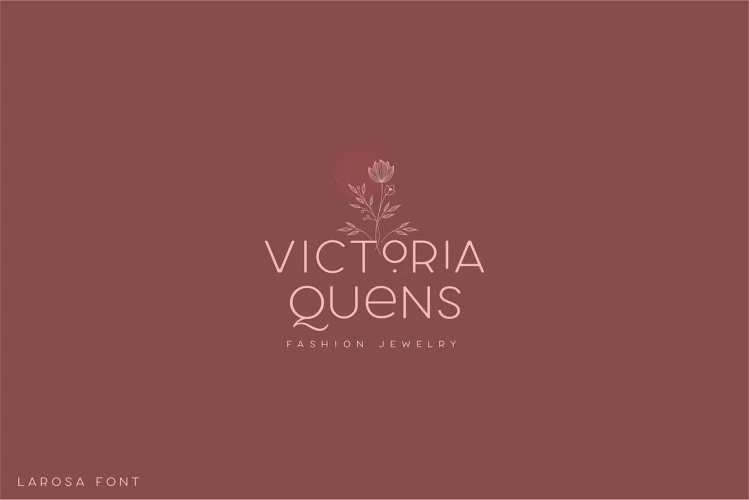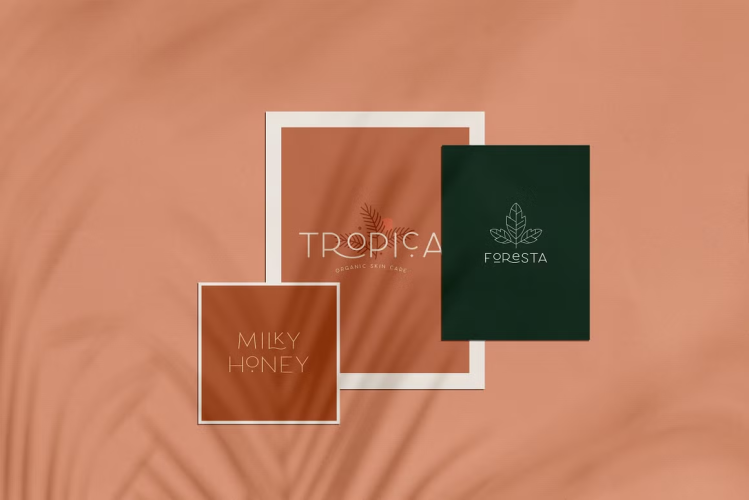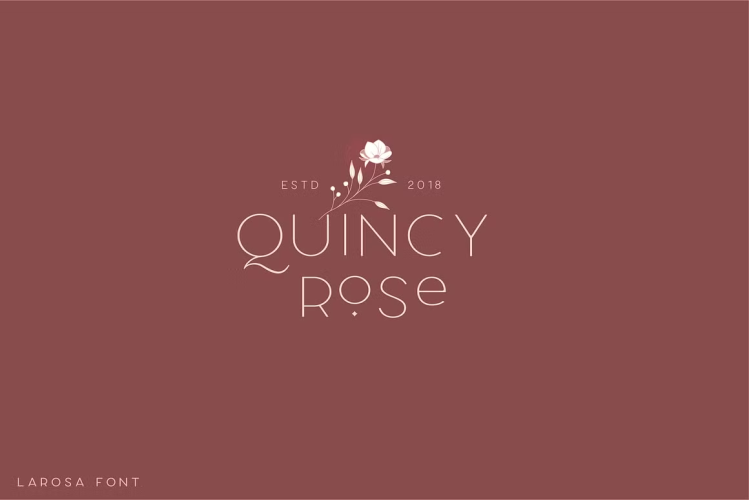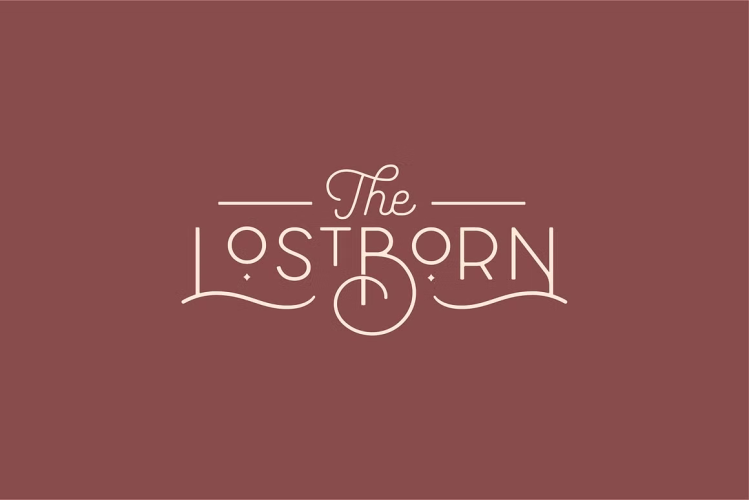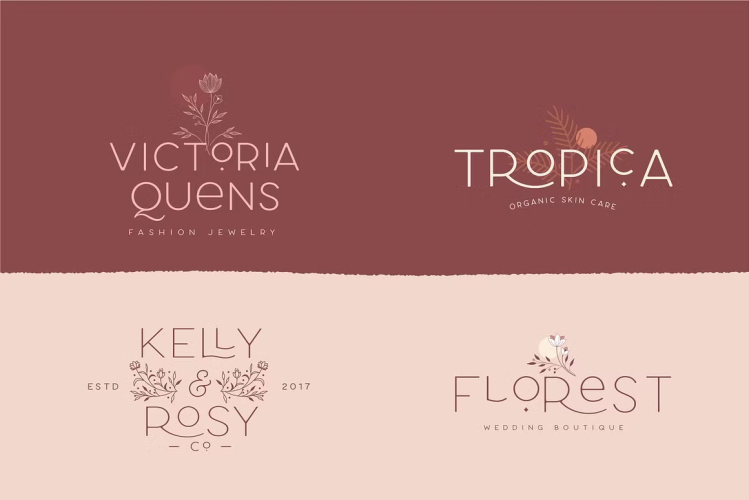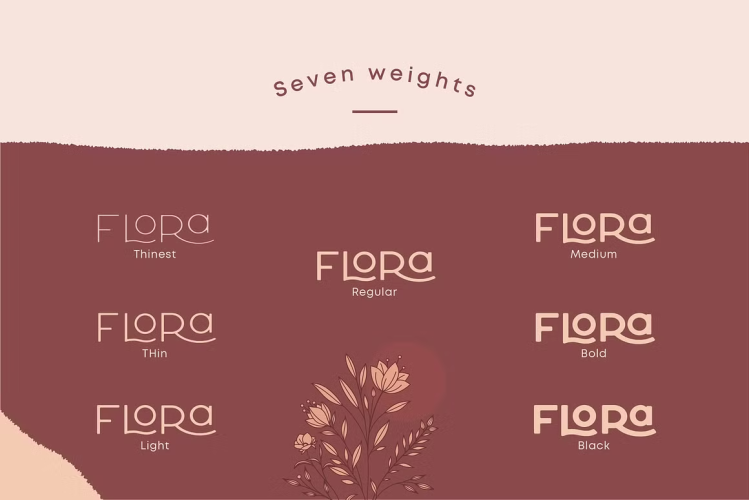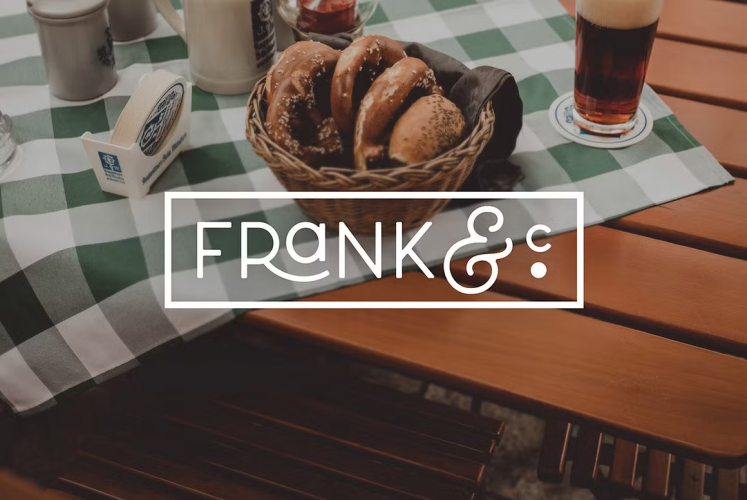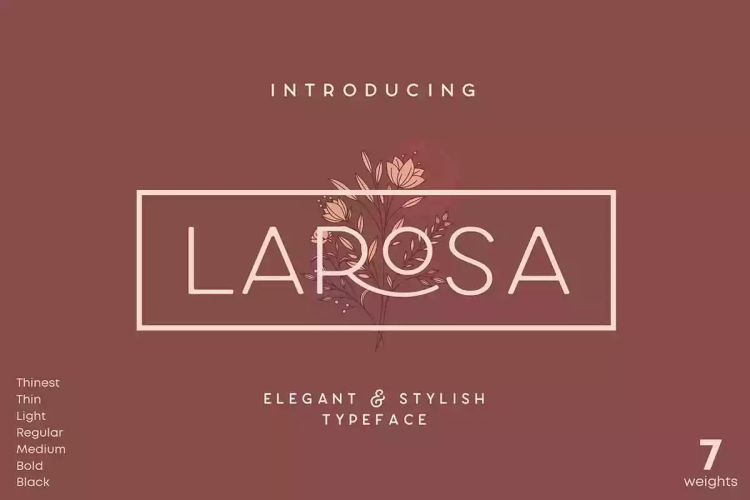
Larosa Font
Introducing Larose Sans—an elegant modern sans serif with many stylistic alternates. Its clean and minimalistic style works wonderfully for logos, headlines, posters, packaging, and more! And with three different weights, your options to create more unique and versatile designs are much broader. Have fun and create more. Your Imagination is only your limit!!
Where Larosa Font works best
Larosa Font keeps its shape at 14 and 16 pixels, which is where interface text actually lives. Numbers and capitals stay distinguishable in tables.
Presentations are read at a distance; a clean sans with a strong bold is the safest hierarchy you can build in a hurry.
Simple letterforms survive angles, glare and movement, so Larosa Font suits door signs, menus boards and exhibition panels.
What kind of work does Larosa Font suit?
It sits in the Sans Serif Fonts group and reads as branding, clean, elegant, minimalist. That makes it a candidate wherever those qualities help: headings, packaging, social graphics and brand work. Set it at the size you plan to use before deciding.